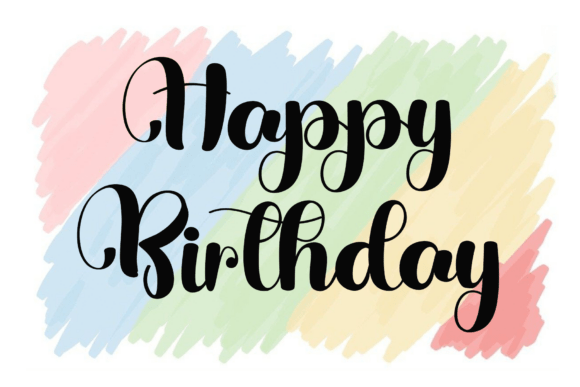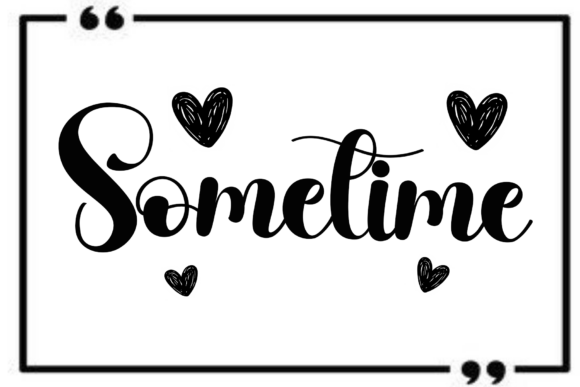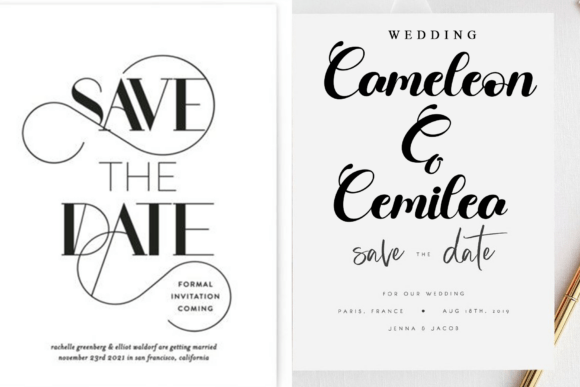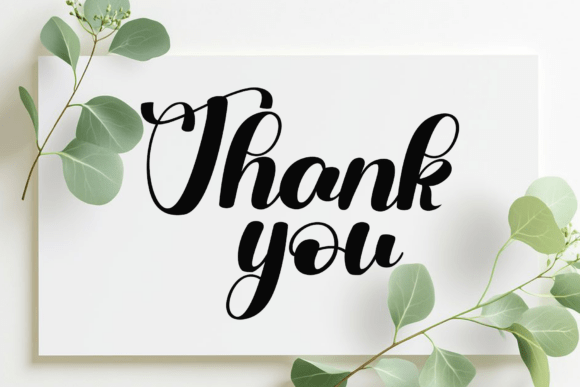
The Perfectly Imperfect Charm of Arabica Font
I’ll never forget the time I was working on a project for a children’s book, and I just couldn’t find the right font to match the playful tone of the story. The client wanted something that felt hand-crafted, yet still professional enough to take the book to the next level. That’s when I stumbled upon Arabica Font – a bold and quirky handwritten display font that instantly captured the essence of the project.
A Personal Review of Arabica Font
- ✨ Charmingly Imperfect Style: Arabica’s playful letterforms and strong presence make it a standout choice for posters, branding, headlines, and kid-friendly designs.
- ✅ Versatility: Whether you’re crafting product packaging or social media posts, Arabica adds a fun, hand-crafted personality to any project.
- 💫 Readability: Despite its bold and quirky nature, Arabica remains surprisingly readable, even at smaller sizes.
While Arabica Font is incredibly versatile, there are a few things to keep in mind:
- ⚠️ Limited Use in Body Text: Due to its bold and playful nature, Arabica might not be the best choice for longer body text. It’s perfect for headlines, titles, and short paragraphs, but might get overwhelming for larger blocks of text.
- 🤔 Glyph Limitations: While Arabica has a range of glyphs and stylistic alternates, it might not have every special character or symbol you need. Be sure to review the font’s capabilities before committing to a project.
The Design Story Behind Arabica Font
Arabica Font was inspired by the charmingly imperfect world of handwriting. Its creator sought to craft a font that felt approachable, yet still professional enough to take on a wide range of design projects. The result is a font that’s equal parts playful and sophisticated.
| Font Name | Arabica Font |
| Author | Preketek texs |
Q: What makes Arabica Font unique?
A: Arabica’s unique blend of bold and quirky letterforms, combined with its charmingly imperfect style, sets it apart from other fonts.
Q: Is Arabica Font suitable for body text?
A: While Arabica is a beautiful font, it’s best suited for headlines, titles, and short paragraphs. For longer body text, a more traditional font might be more readable.